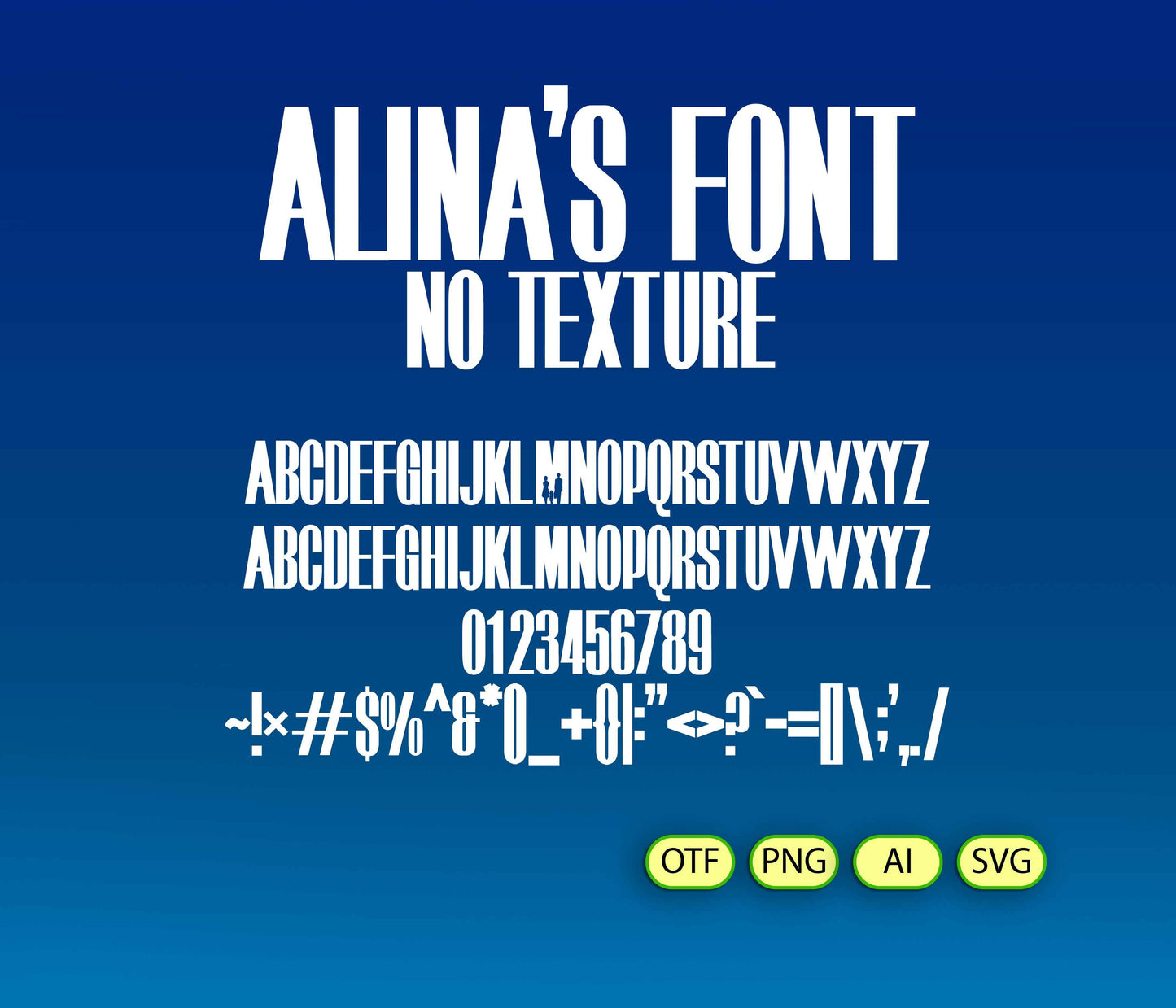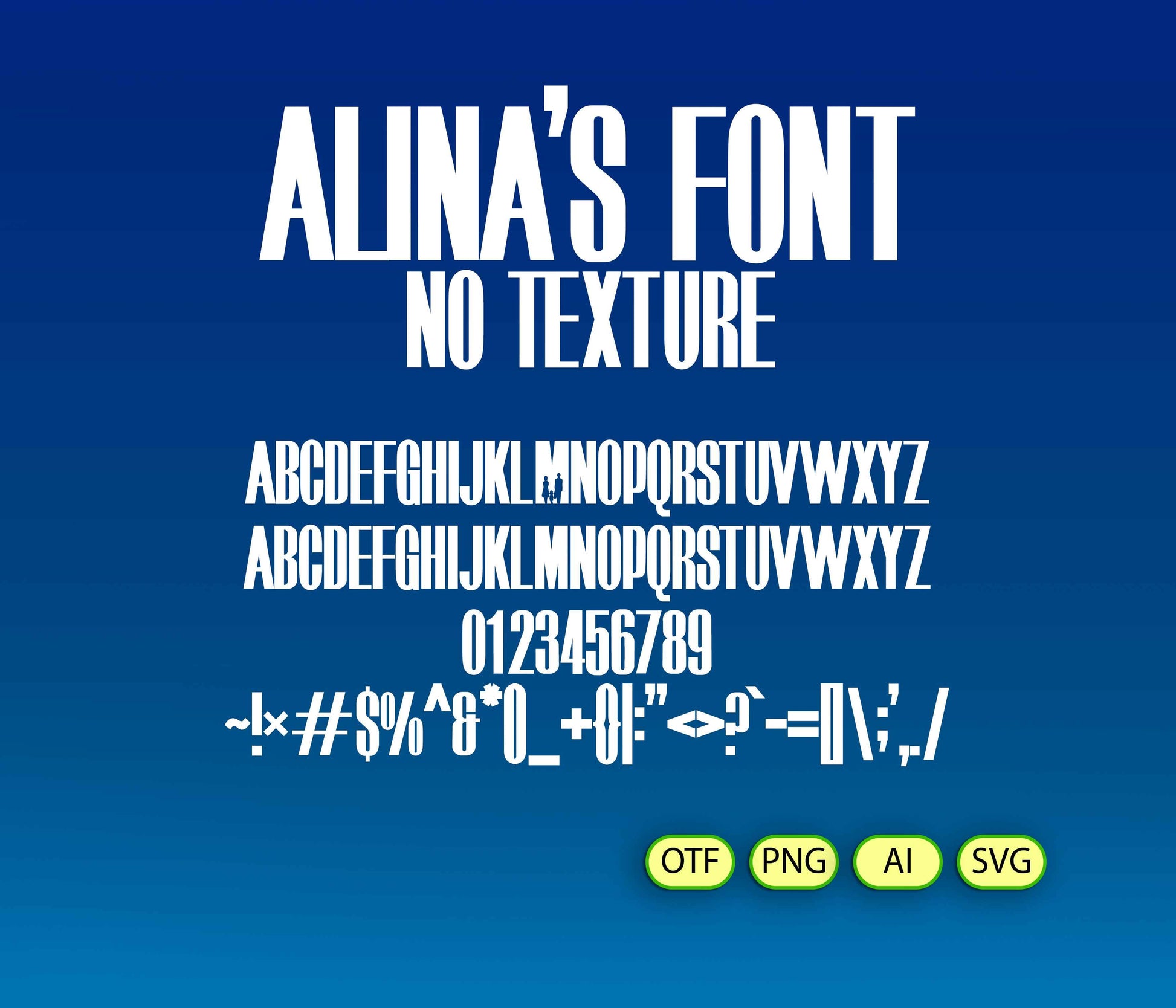
Spy Team Font
Spy Team Font: Sleek Design for Covert Creations
Immerse yourself in the world of espionage with the Spy Team font, inspired by the thrilling and heartwarming stories of a covert family. This font captures the dual life of intrigue and domesticity, blending sleek, clean lines reflecting the precision of spycraft with playful twists echoing the family's quirky interactions. It's perfect for projects requiring a touch of mystery, elegance, and heart, mirroring the adventures of an undercover family.
What font is Spy Team Font?
The Spy Team font embodies both espionage and family elements. Each character features sharp, precise edges suggesting stealth and strategy, while softer curves nod to warmth and unpredictability. The comprehensive character set includes uppercase, lowercase, numbers, and special characters, making it versatile for a wide range of creative projects. This typeface fuses modernity and playfulness, suitable for professional designs and personal projects.
Versatile and adaptable, the Spy Team font can be seamlessly integrated into various projects, bringing a unique blend of sophistication and whimsy:
1. Marketing Materials for Events: Perfect for promotions of conventions or spy-themed events.
2. Fan-Made Merchandise: Create t-shirts, hats, and bags any Spy Team fan would love.
3. Social Media Campaigns: Enhance posts and banners with a font that captures attention.
4. Animation and Video Titles: Use in opening credits or promotional videos for a stylized look.
5. Personalized Invitations: Craft unique invites for private screenings or themed parties.
6. Graphic Novels and Comics: A great choice for dialogue and narration in your stories.
7. Website Design: Implement in headers and footers for a clean, modern aesthetic.
8. Educational Content: Make learning materials engaging with a fun typeface.
9. DIY Projects: Create custom decorations, scrapbooking, or cosplay guides.
10. Professional Presentations: Add intrigue to business presentations and reports.